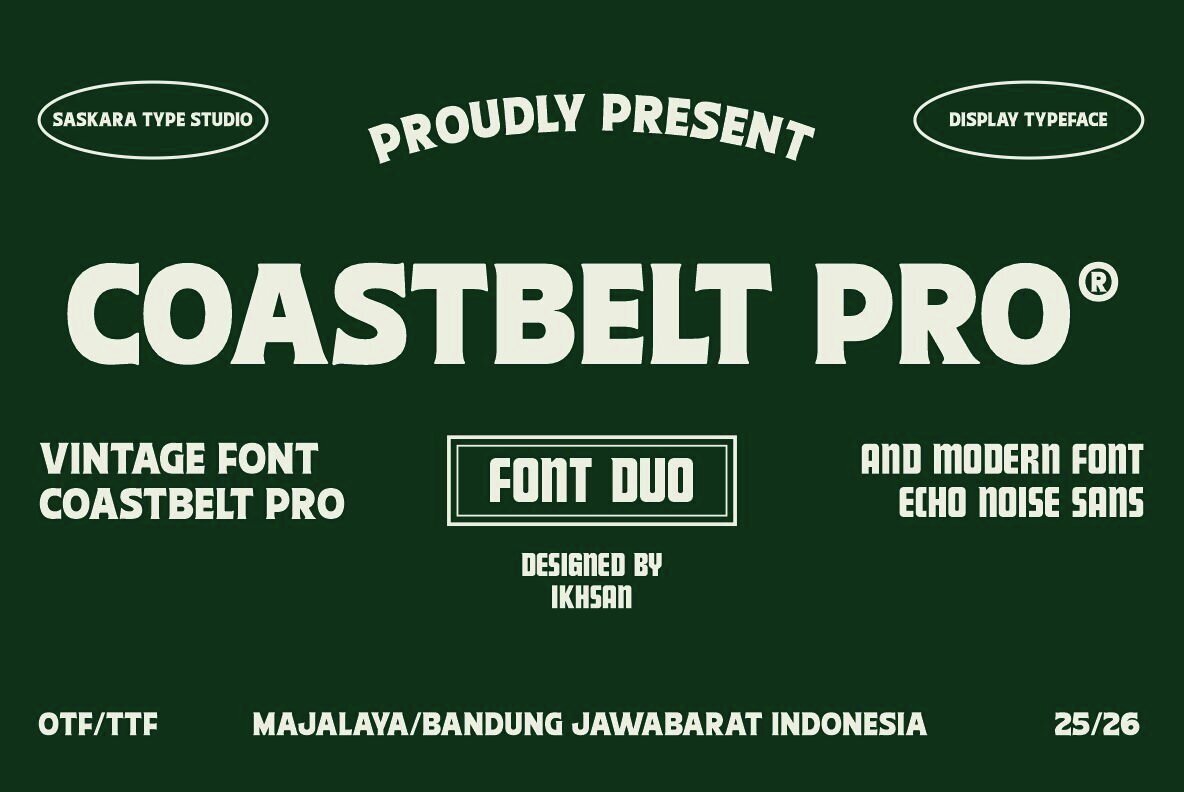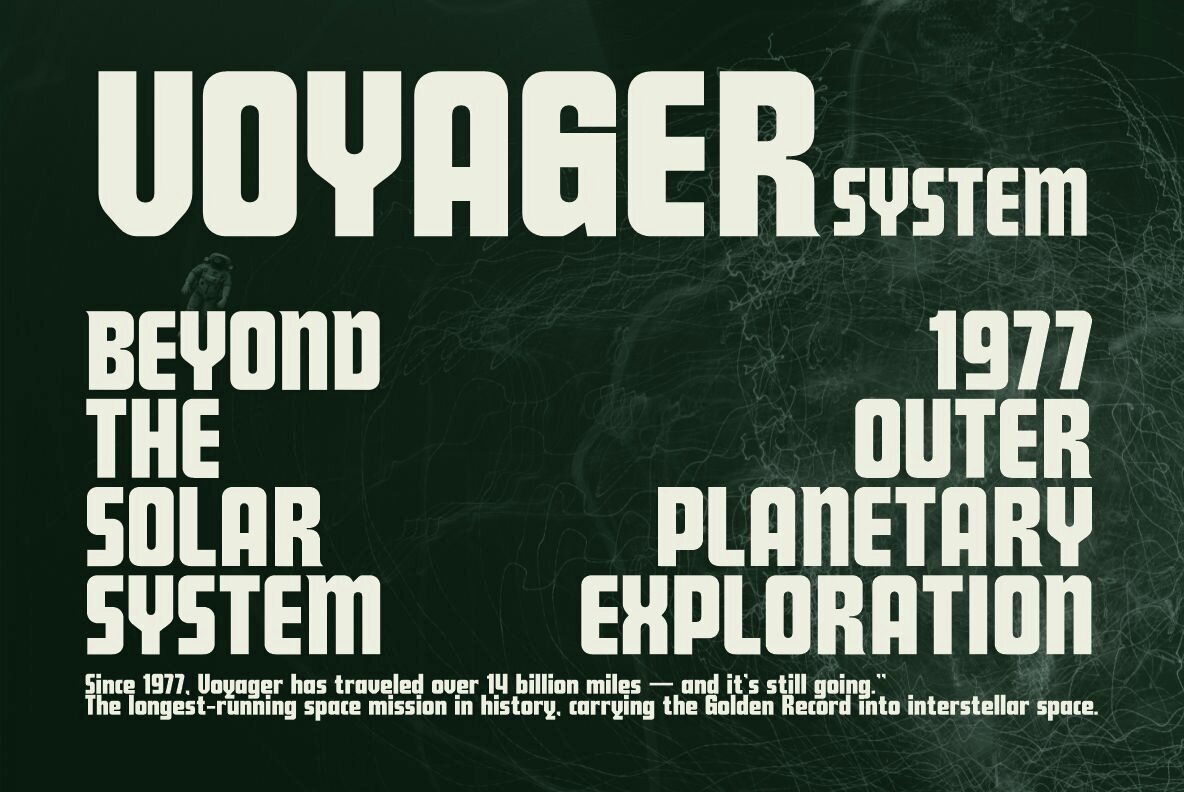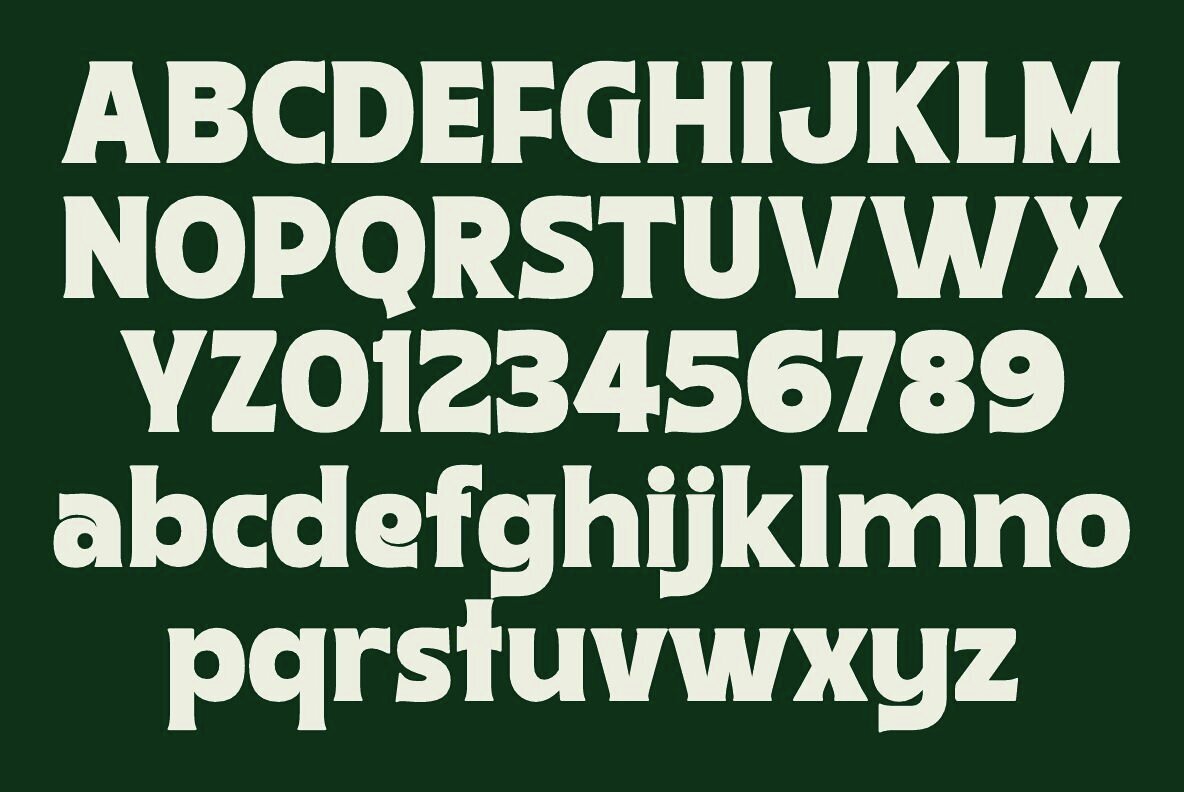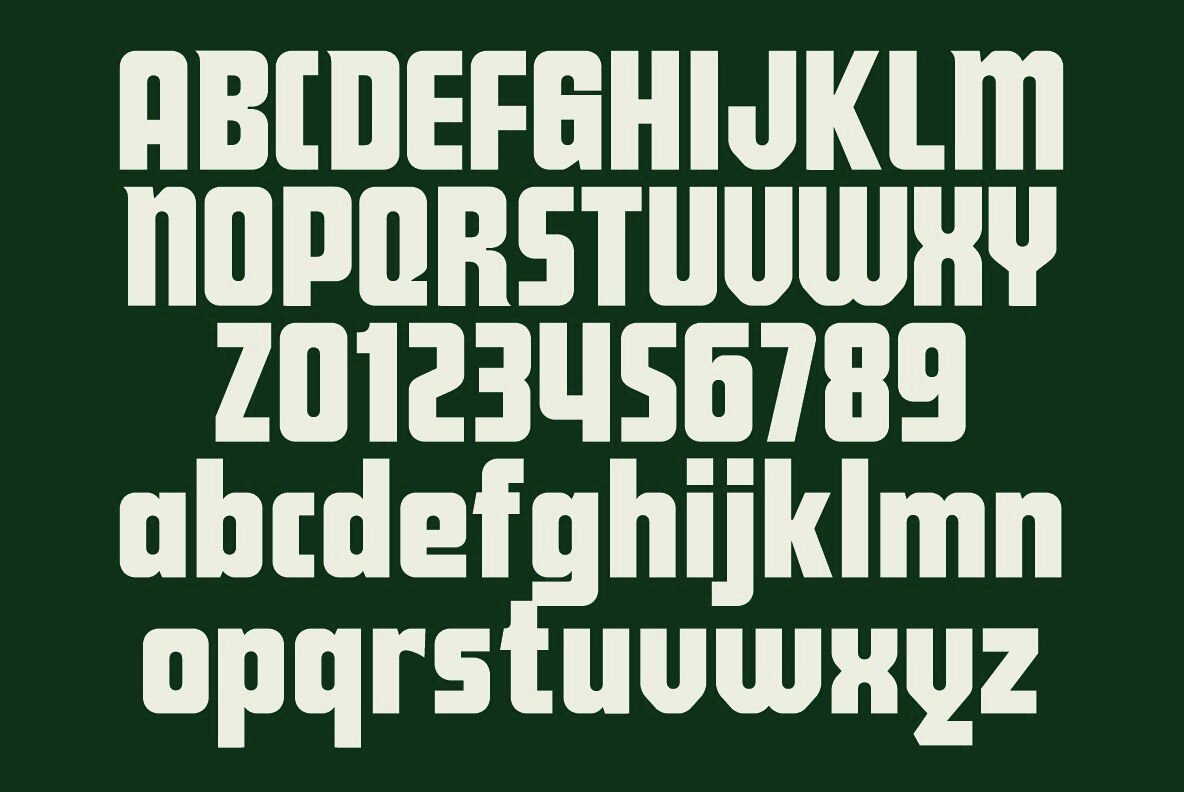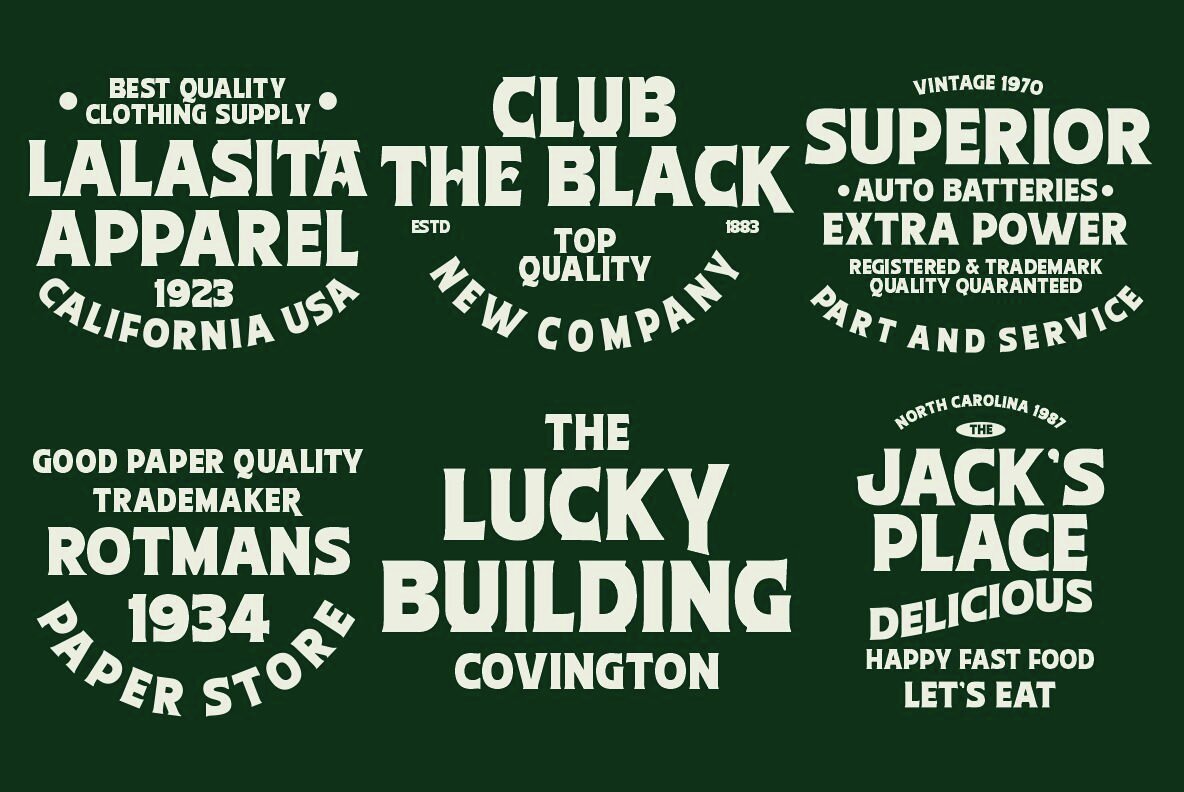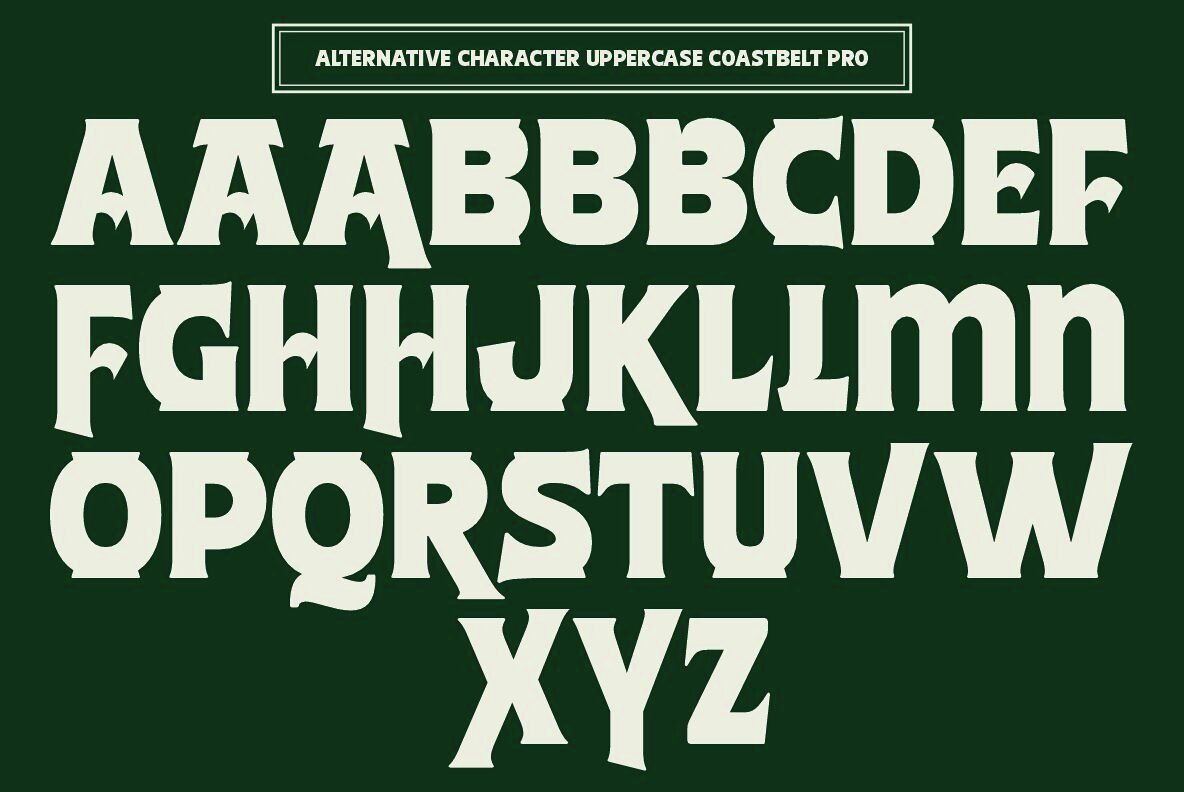
Coasbelt Pro Echo Noise Sans Font
Coastbelt Pro is a robust vintage display font that exudes the essence of industrial lettering paired with rustic aesthetics. It features bold strokes and authentic handcrafted details, conveying a masculine and timeless character. Ideal for logos, packaging, posters, signage, apparel, and editorial projects, Coastbelt Pro infuses your designs with a heritage and retro vibe. Echo Noise Sans offers a sleek, modern sans serif style characterized by clean lines and geometric forms. Its minimalist elegance enhances versatility, performing seamlessly across digital and print platforms. This font is perfect for websites, apps, branding, presentations, and UI/UX designs, adding clarity, balance, and a contemporary touch to your projects.Coastbelt Pro: Vintage Display Font with Industrial Charm
Echo Noise Sans: Modern Sans Serif for Versatile Design